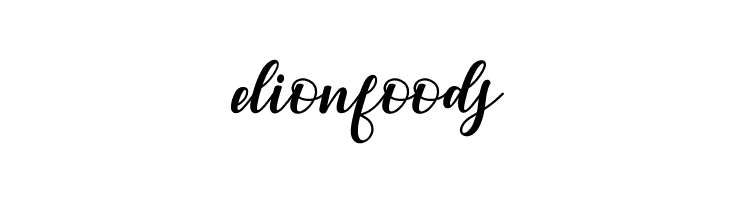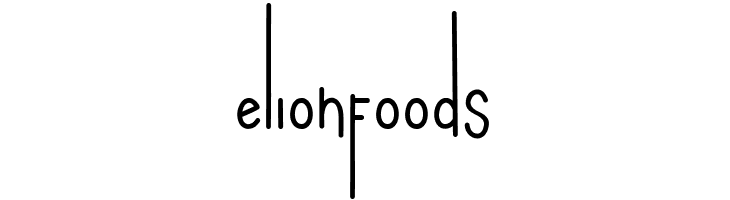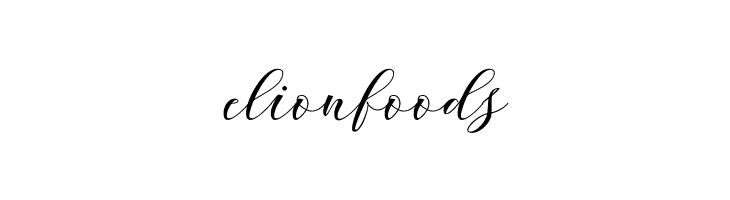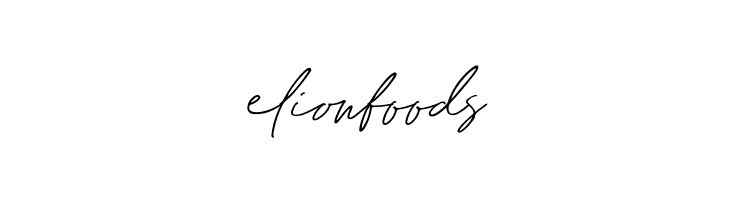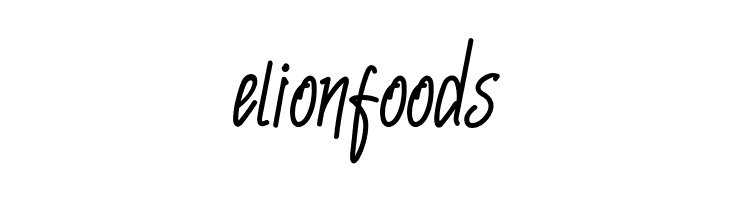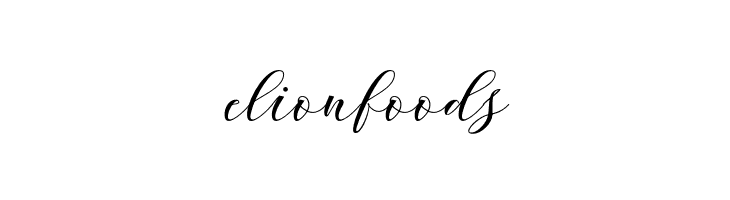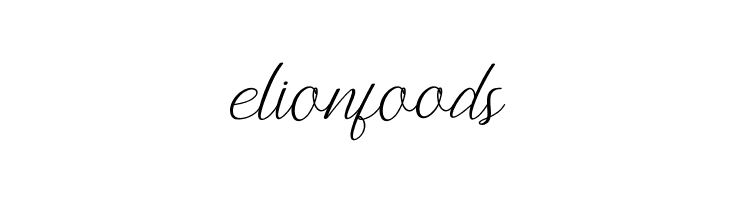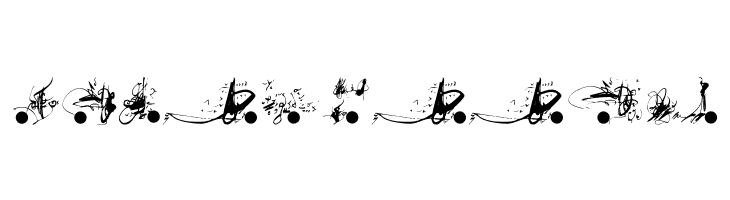
An elegant script font with flowing, cursive letterforms and sophisticated style.
An elegant script font with flowing, cursive letterforms and a classic, decorative style.
An abstract, artistic font with intricate, swirling designs.
An elegant script font with intricate swirls and high contrast, ideal for formal designs.
An elegant script font with ornate flourishes and high contrast strokes.
A modern, decorative font with elongated, narrow letterforms and artistic flair.
A modern, artistic font with elongated, narrow characters and high contrast strokes.
A casual, handwritten font with a dynamic and flowing style.
An elegant script font with flowing, cursive strokes and sophisticated style.
A graceful and fluid script font with elegant, flowing lines.